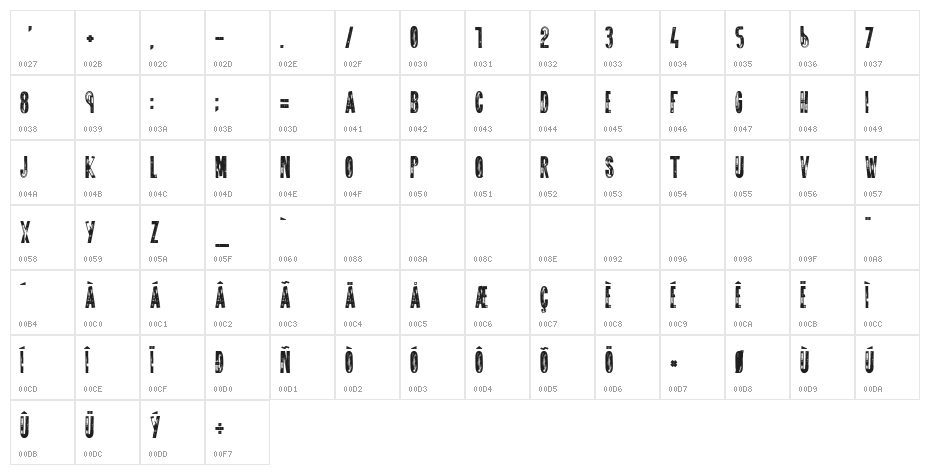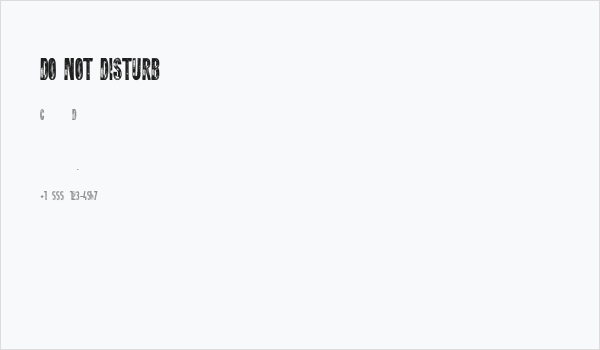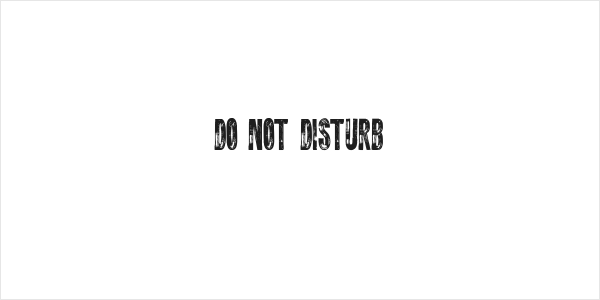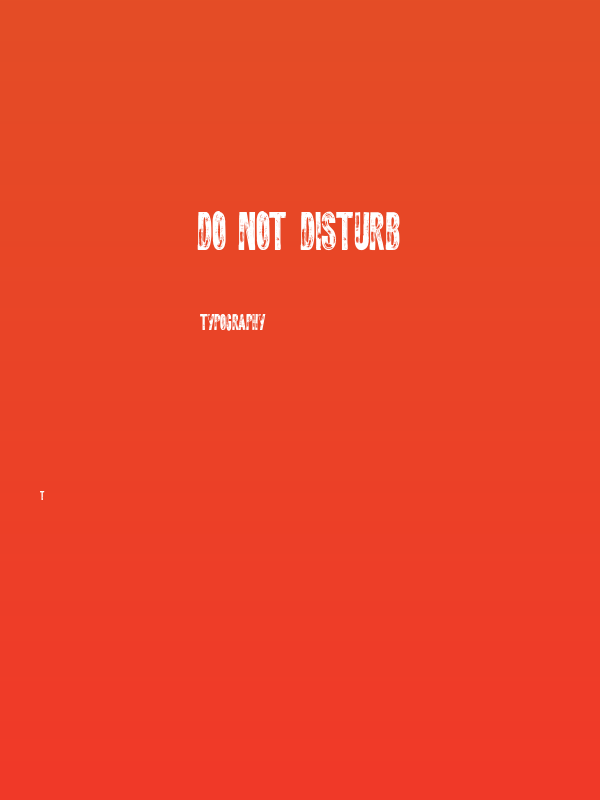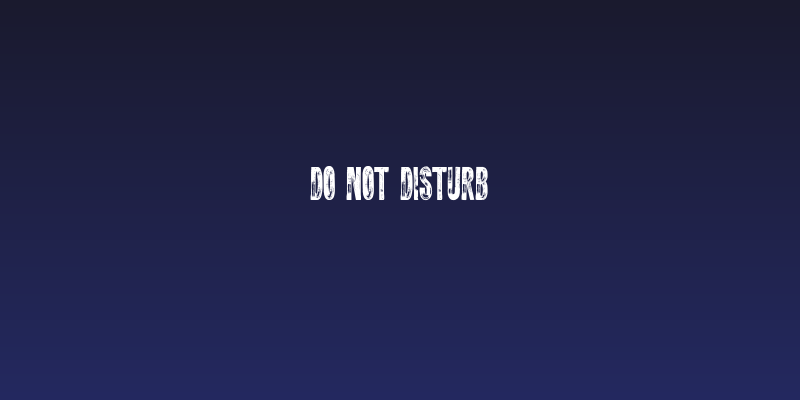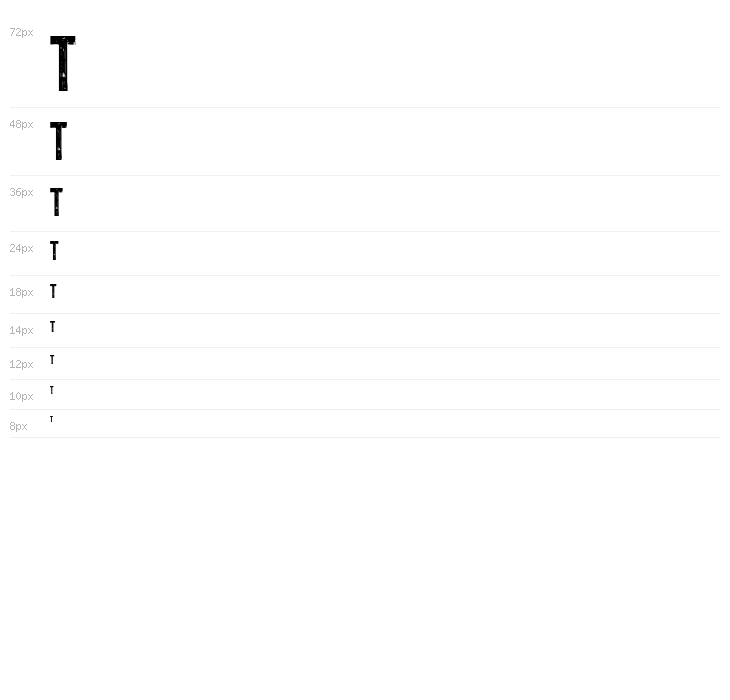
DO NOT DISTURB Font
DO NOT DISTURB Description
This font features a bold and distressed style, characterized by a rough, textured appearance that gives it a vintage and worn look. The uppercase letters are prominent and impactful, making it suitable for attention-grabbing headlines or titles. The numbers and special characters maintain the same distressed aesthetic, ensuring consistency across all characters. The font's unique style is reminiscent of old signage or posters, adding a sense of nostalgia and character to any design.
| Proposed Projects | Ideal for vintage-themed posters, retro branding, album covers, or any project needing a bold, nostalgic touch. |